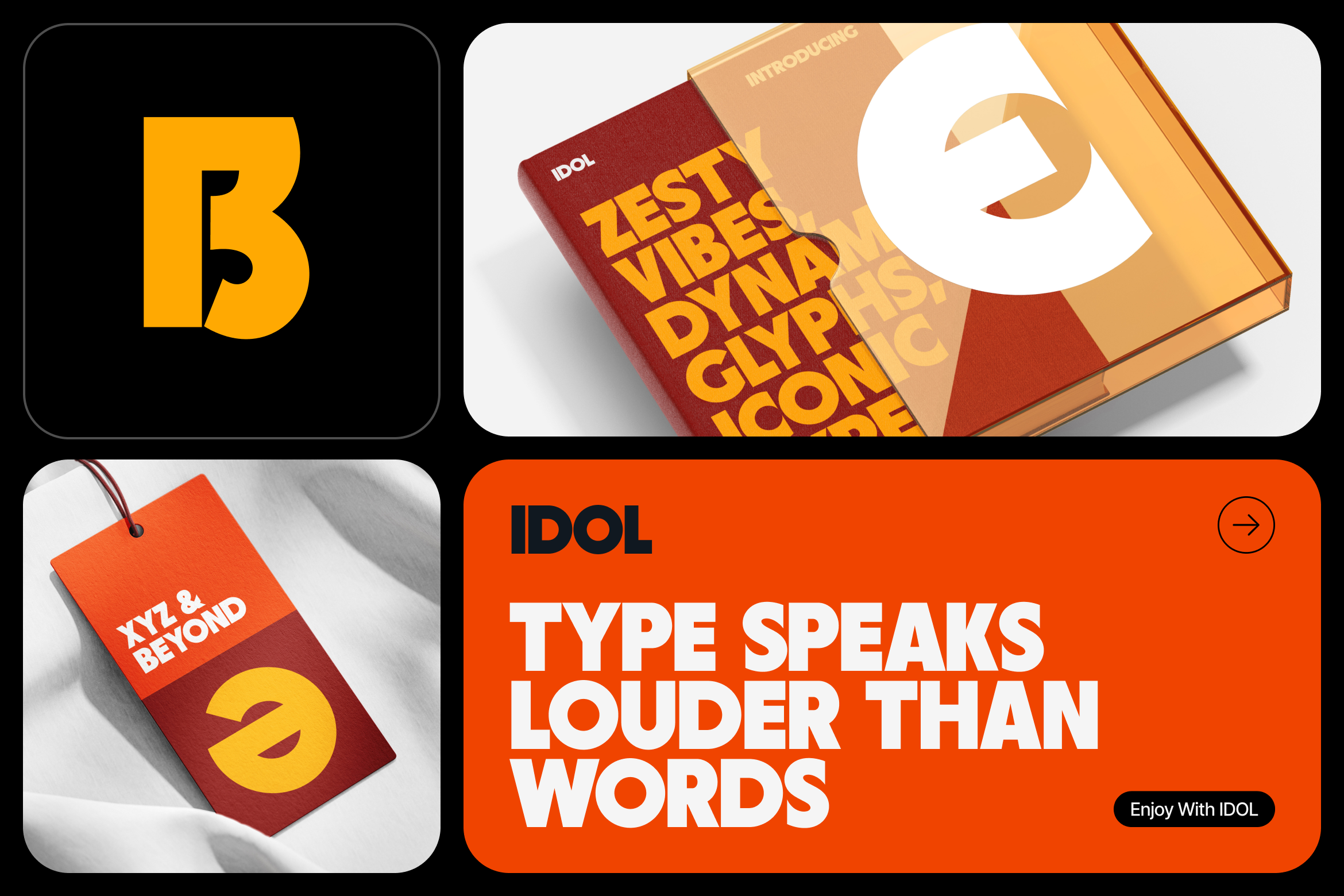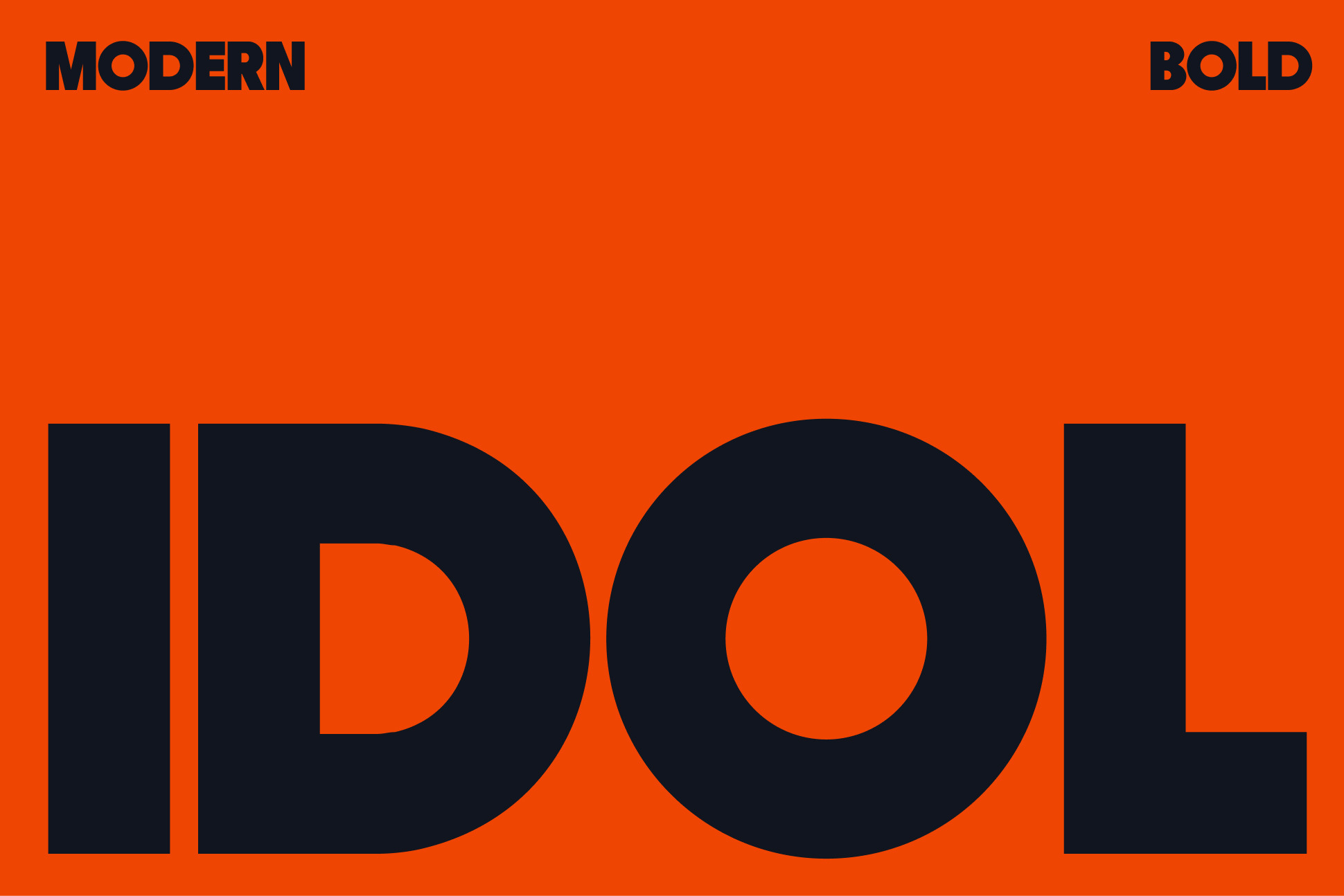
IDOL Poster Font
This modern and versatile typeface is designed for bold, impactful branding. With its urban aesthetic, contemporary edge, and strong geometric structure, it seamlessly adapts to various industries, from sports brands and fintech to corporate and tech sectors. The clean yet expressive letterforms ensure high readability and striking presence in both digital and print applications. Whether it's for a high-energy campaign, a sleek corporate identity, or dynamic editorial design, this font delivers a powerful visual statement.